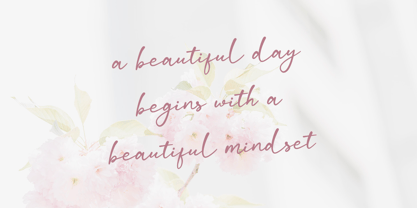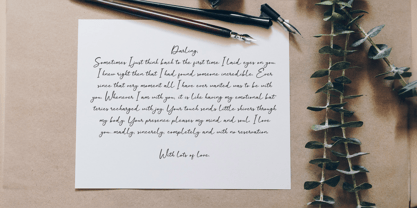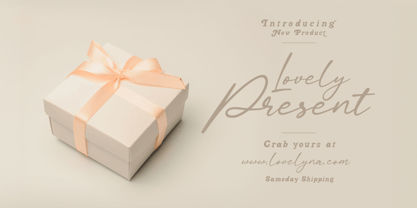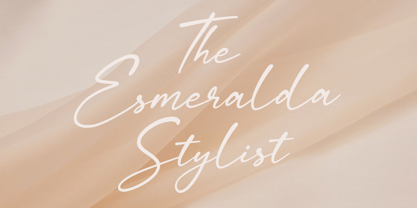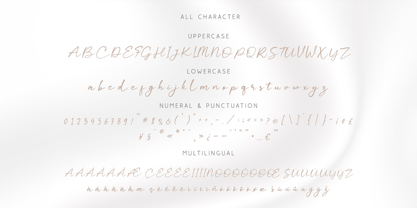
Calaya
by Craft Supply Co
The Calaya Font Family was designed by Trio Nazzar Saputra, Wahyu Hadi Yuana and published by Craft Supply Co. Calaya contains 2 styles and family package options.
Introducing New Font : Calaya – Lovely Modern Script
Calaya – Lovely Modern Script is an handwritten script font based on the expression of real handwriting. Cattus – Modern Casual Script will work perfectly for fashion, e-commerce brands, trend blogs, wedding boutiques or any business that wants to appear upscale and chic.
Calaya – Lovely Modern Script also Suitable for Logo, greeting cards, quotes, posters, branding, name card, stationary, design title, blog header, art quote, typography, art, modern envelope lettering or book design, happening style like handdrawn design or watercolor design theme, craft design, any DIY project, book title, or any purpose to make your art/design project look pretty and trendy.
Designers: Trio Nazzar Saputra, Wahyu Hadi Yuana
Publisher: Craft Supply Co
Foundry: Craft Supply Co
Design Owner: Craft Supply Co